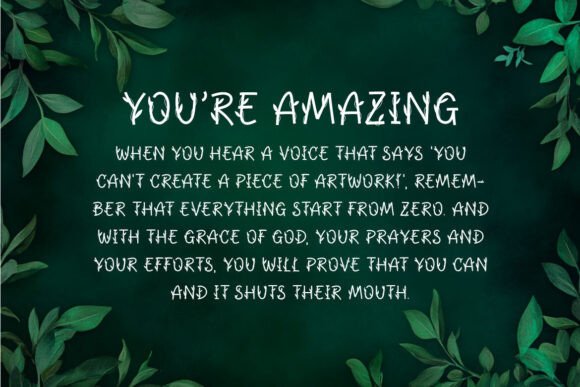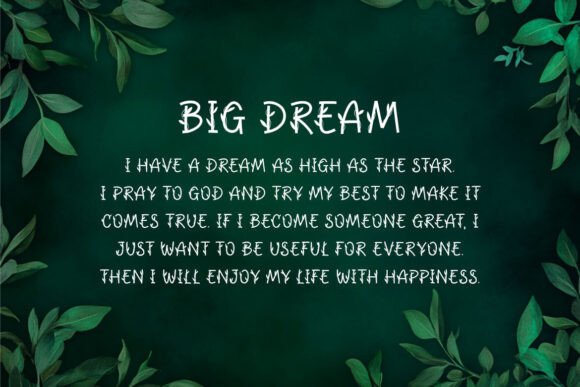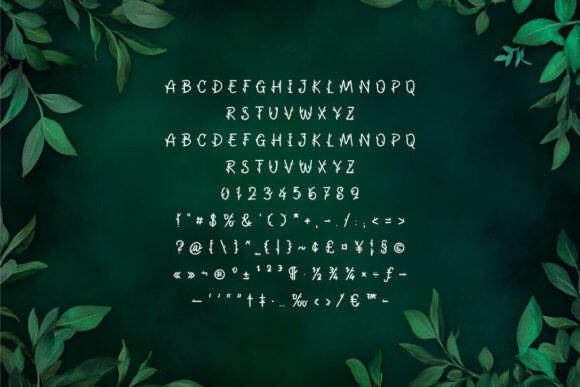
Get Ready to Unleash Your Creativity with the Branchy Font
Have you ever stared at a beautiful piece of driftwood or a delicate branch, and felt inspired to bring that organic beauty into your design work? That’s exactly the creative spark that led to the creation of the Branchy Font – a unique and captivating decorative display font that’s all about embracing the natural world.
Designed to add an elegant yet playful touch to any project, the Branchy Font is perfect for branding, packaging, logos, posters, and artistic designs. Its bold, handcrafted letters intertwined with natural, branch-like elements make it a valuable tool for designers looking to add a touch of sophistication and creativity to their work.
With the Branchy Font, you can add an organic touch to your designs and make them truly stand out. Whether you’re crafting an eco-friendly brand or working on a whimsical design project, this font is the perfect choice to bring your vision to life.
- Unique Characteristics: The font features a distinctive branching design, where stems and strokes split into multiple branches, creating a dynamic and organic feel.
Branchy Font Review
When I first laid eyes on the Branchy Font, I was immediately drawn to its quirky and organic vibe. ✨ The unique branching style gives it a playful, hand-drawn feel that’s perfect for adding some personality to your designs. ✨ The font is also surprisingly versatile, working well in a variety of contexts from headings to body text.
However, there are some limitations to consider. ⚠️ The font’s branching style can sometimes make it difficult to read, especially at smaller sizes or in situations where the text is dense. Additionally, the font may not be suitable for formal or professional applications where a more traditional, clean font is required.
- ✨ Unique and playful design
- ✨ High level of customization options
- ✨ Suitable for creative and informal applications
- ⚠️ Can be difficult to read at small sizes
- ⚠️ May not be suitable for formal or professional applications
Overall, I think the Branchy Font is a great choice for designers looking to add some personality to their projects. While it may not be the best fit for every situation, it’s a versatile and unique font that’s sure to make a statement.
Branchy Font is commonly used for:
- Designing children’s book illustrations
- Creating hand-drawn fonts for logos and branding
- Adding a unique touch to digital artwork
Comparison to Branchy Font: While Branchy Font is more whimsical and quirky, Playfair Display is sophisticated and refined. Playfair Display’s classic feel makes it more suitable for formal events, whereas Branchy Font is better suited for casual or creative projects.